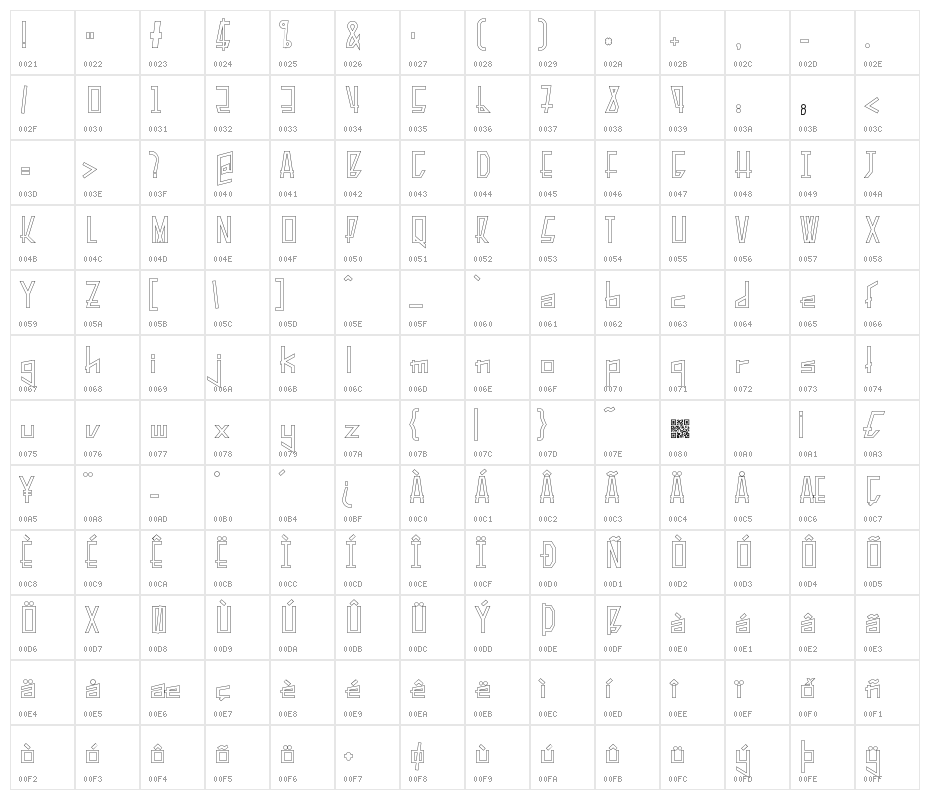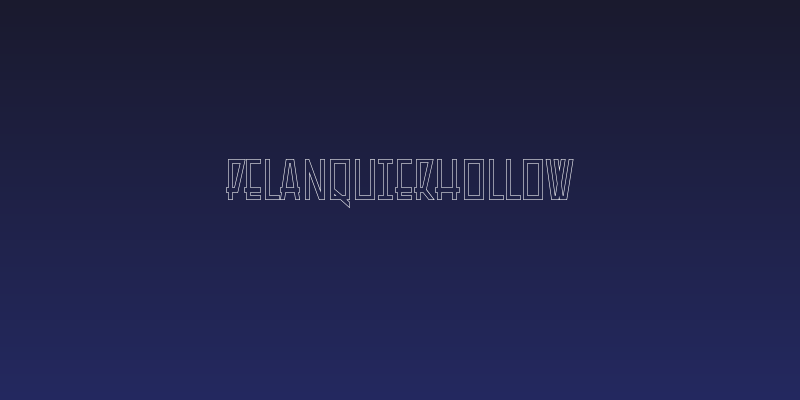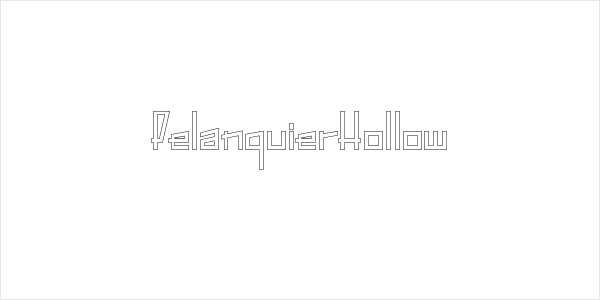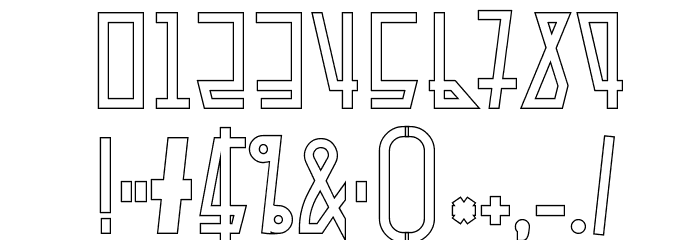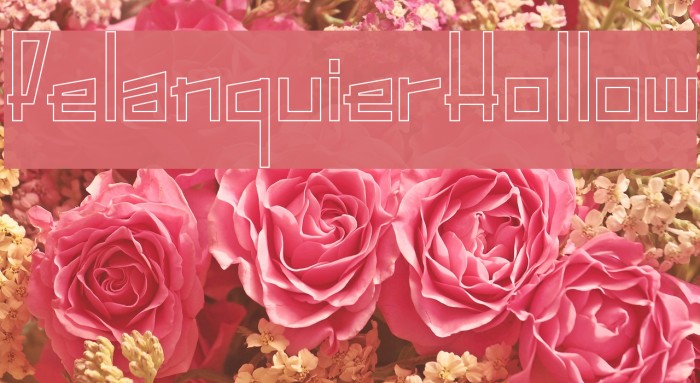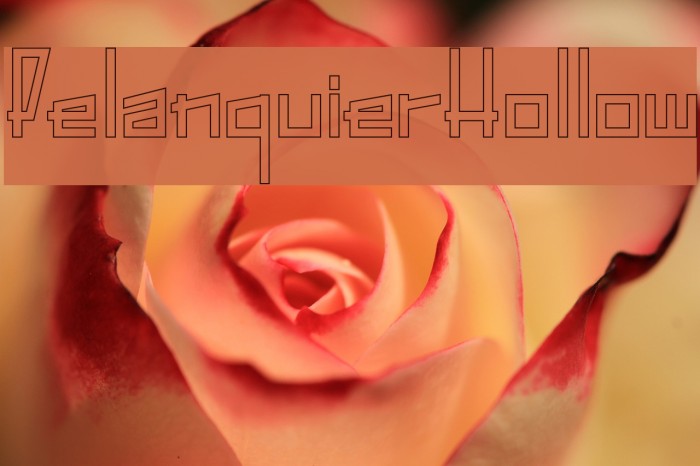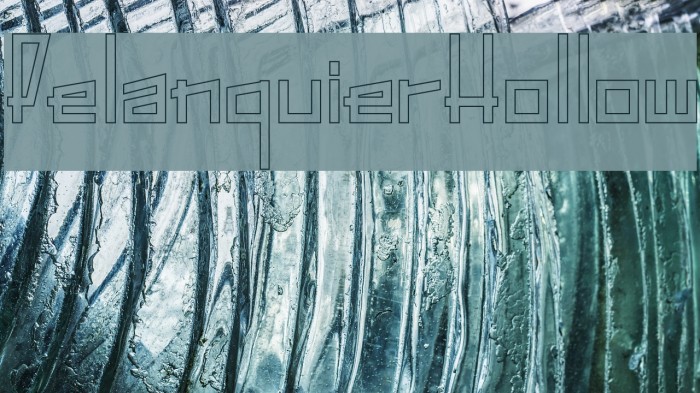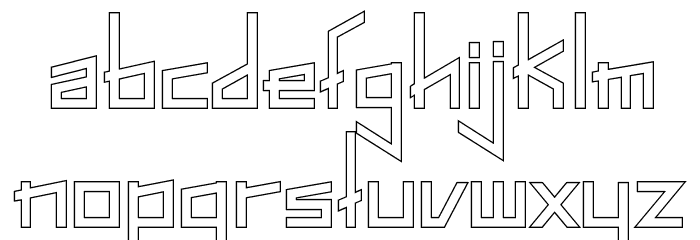
PelanquierHollow Font
PelanquierHollow Description
This font features a unique hollow design with a geometric and angular style. The characters are outlined, giving them a bold and striking appearance while maintaining a sense of lightness due to the hollow centers. The uppercase and lowercase letters share a consistent angular theme, with sharp edges and clean lines. Numbers and special characters follow the same design principles, ensuring uniformity across all glyphs. This font's distinct style makes it stand out, offering a modern and edgy look that is both artistic and functional.